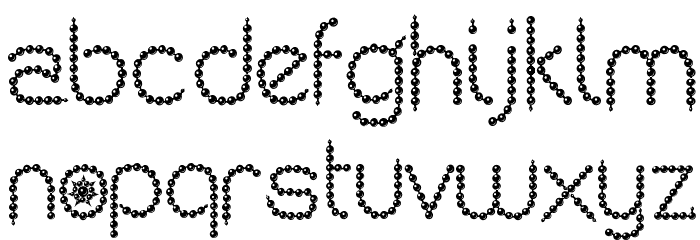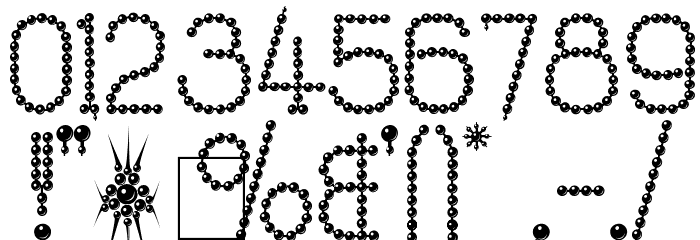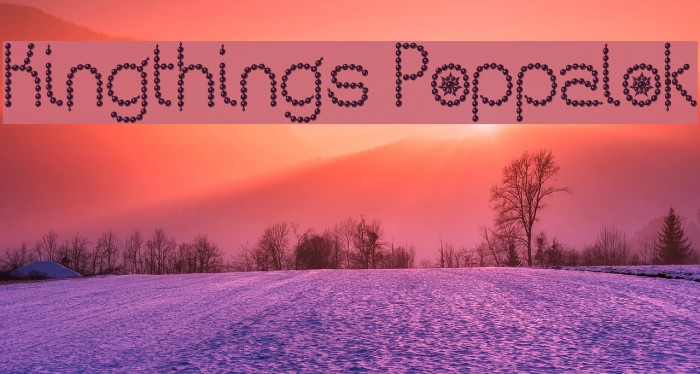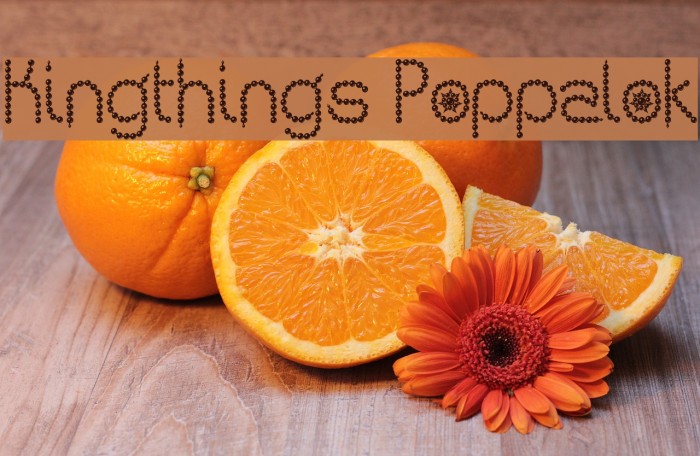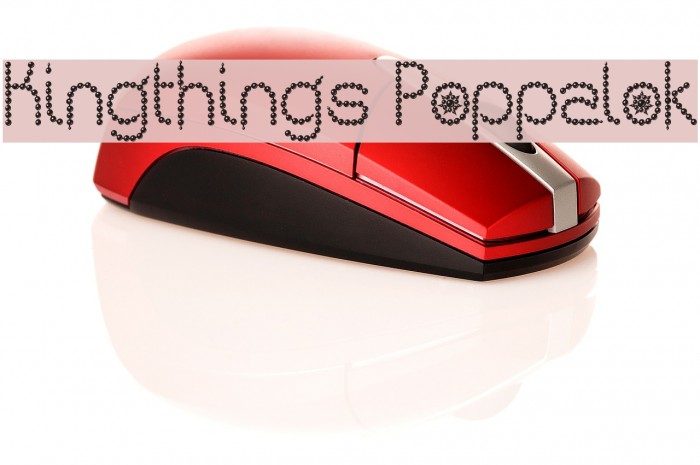
Kingthings Poppalok Font
This font features a playful and decorative style, with each character composed of small, round beads or pearls. The letters are evenly spaced and maintain a consistent size, giving the font a uniform appearance. The uppercase and lowercase letters are distinct, with the uppercase being slightly larger and more pronounced. Numbers and special characters follow the same beaded design, ensuring a cohesive look across all elements. The font's unique design makes it stand out, offering a whimsical and fun aesthetic that is both eye-catching and memorable.
A playful, beaded decorative font with a whimsical aesthetic.
- Proposed Projects: Ideal for children's books, playful invitations, festive posters, and creative branding projects.